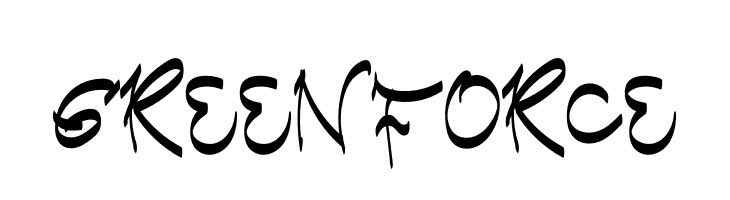
A bold, dynamic script font with a hand-painted, artistic style.
A bold, expressive script font with a hand-painted, artistic style.
A bold, dynamic font with a handwritten, calligraphic style.
A bold, playful handwritten font with an energetic and artistic style.